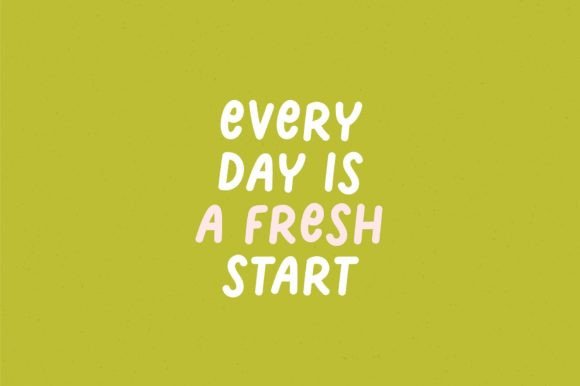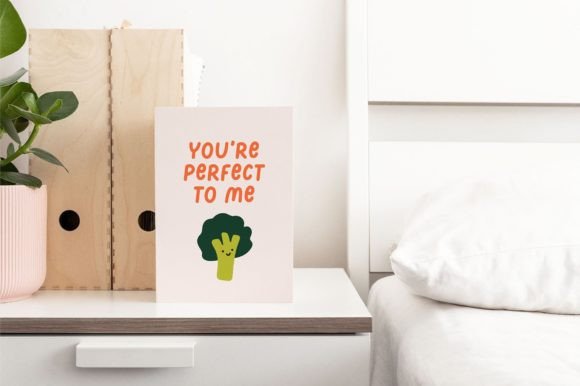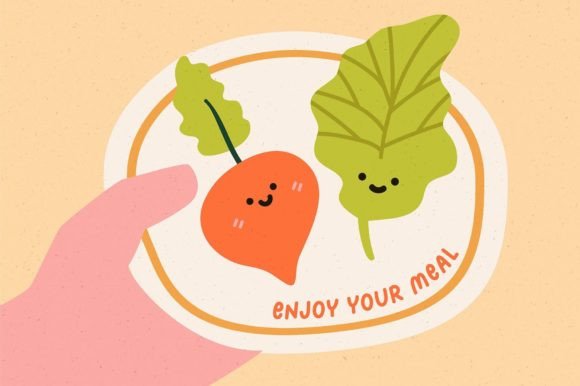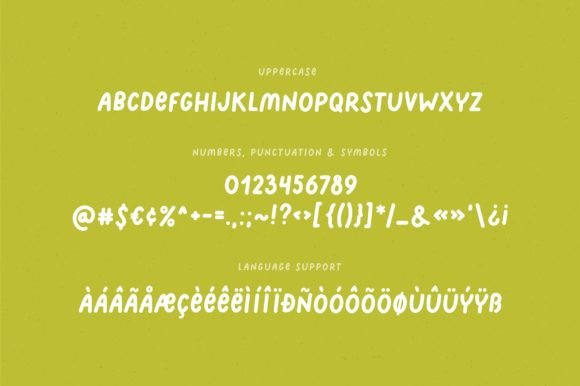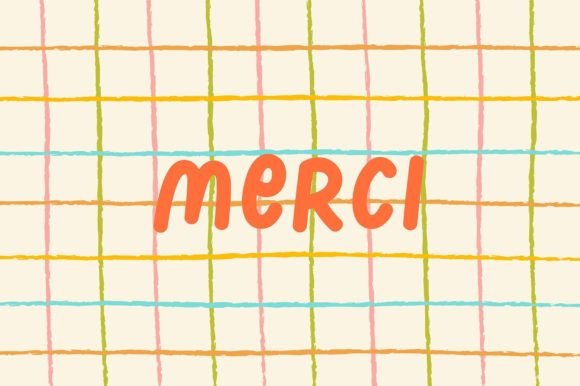
Bring a Touch of Whimsy to Your Designs
Have you ever stared at a blank canvas, trying to come up with the perfect idea for a project, only to have it all come together in a burst of creativity? That’s exactly what happened when we discovered the Good Avocado Font – a playful handwritten typeface that adds a touch of whimsy to any design.
Whether you’re creating quotes, greeting cards, invitations, posters, business cards, or presentations, the Good Avocado Font is the perfect addition to bring your designs to life. Its unique, hand-drawn feel is both fresh and fun, making it a valuable asset for any designer looking to add a personal touch to their work.
Good Avocado Font Key Features
- Font Family: Good Avocado Font is a unique, hand-drawn font designed for various creative applications.
- Character Set: Includes a wide range of characters, including uppercase and lowercase letters, numbers, punctuation marks, and special characters.
- Font Size: Supports font sizes from 8pt to 120pt, making it suitable for various design projects.
- Resolution: Optimized for high-resolution displays (Retina and 4K) with a minimum recommended resolution of 72 dpi.
- Unique Characteristics: The Good Avocado Font features a distinctive, hand-drawn style with subtle imperfections, giving it a personal and organic feel.
Designer Review: Good Avocado Font
Overall, I’d say the Good Avocado Font has its charm, but it’s not without its flaws.
What works well: ✨ The font’s unique design is quite visually appealing, especially when used in creative projects or for branding purposes. The curves and rounded edges give it a friendly, approachable feel that’s hard to resist.
✨ The font’s legibility is also commendable, making it a great choice for body text. It’s easy to read and understand, even at smaller font sizes.
✨ The font’s versatility is another strength, as it can be used in a variety of contexts, from digital displays to print materials.
However, there are some limitations to consider: ⚠️ The font’s bold weight is somewhat inconsistent, with some letters looking more condensed than others.
⚠️ The font’s italics are also somewhat lacking, with some letters not being properly slanted.
⚠️ The font’s support for certain languages is limited, which may be a concern for global brands or organizations.
Overall, I’d say the Good Avocado Font is a solid choice for creative projects, but it may not be the best fit for more formal or technical applications.
Tips for Getting the Most Out of Good Avocado Font
To get the most out of Good Avocado Font, use it in conjunction with bold or italic text to create emphasis. Also, consider pairing it with a contrasting color scheme to make your text stand out. Experiment with different font sizes and styles to find the perfect balance for your design.
Good Avocado Font is perfect for creative projects, such as logo design, branding, and marketing materials. It’s also great for adding a personal touch to wedding invitations, social media graphics, and other visual content.
Alternatives to Good Avocado Font for Designers
Great Vibes Font is a modern, elegant script font perfect for creating a relaxed and friendly atmosphere. It’s ideal for headings, titles, and quotes in design projects that require a touch of sophistication and whimsy. Compared to Good Avocado Font, Great Vibes Font is more refined and has a softer, more rounded feel.
Pacifico Font is a beautiful, cursive font inspired by the Pacific Ocean. It’s great for creating a calming and serene atmosphere in design projects, especially those related to travel, wellness, or nature. Compared to Good Avocado Font, Pacifico Font is more fluid and has a more organic feel.
Carolyna Pro Font is a modern, elegant script font with a touch of sophistication. It’s perfect for creating a luxurious and high-end atmosphere in design projects, especially those related to fashion, beauty, or luxury goods. Compared to Good Avocado Font, Carolyna Pro Font is more refined and has a more polished feel.